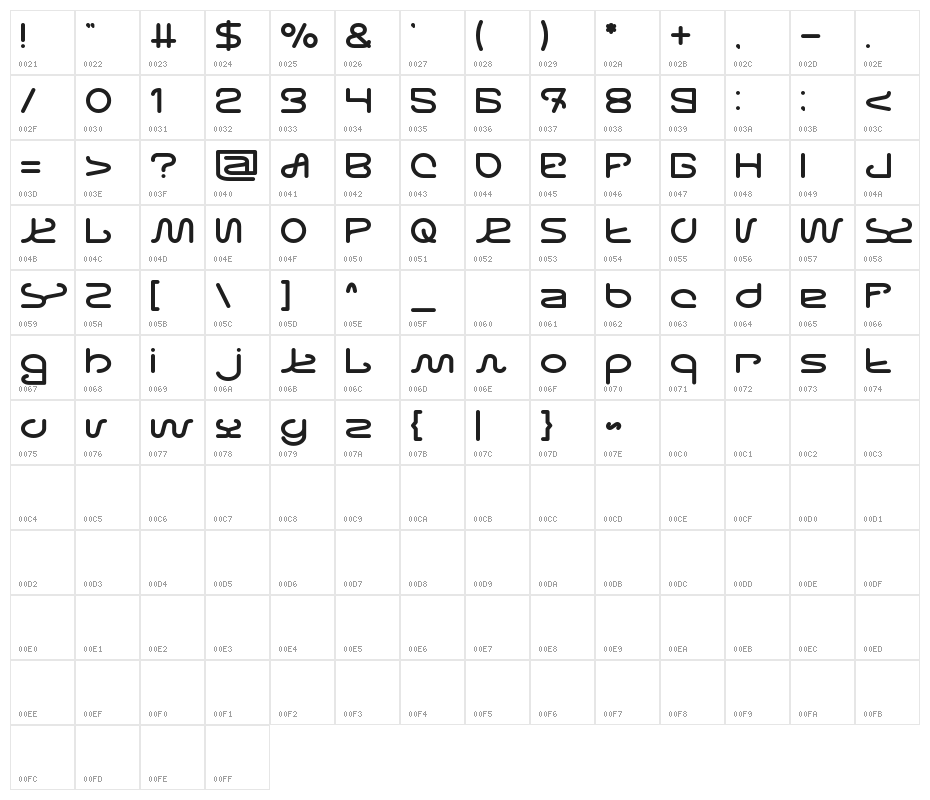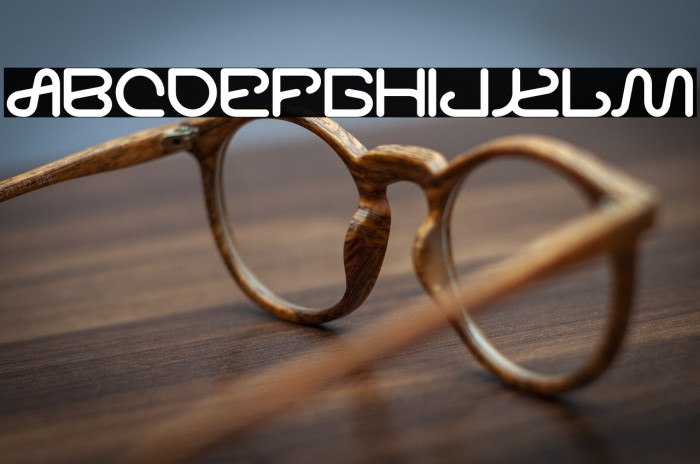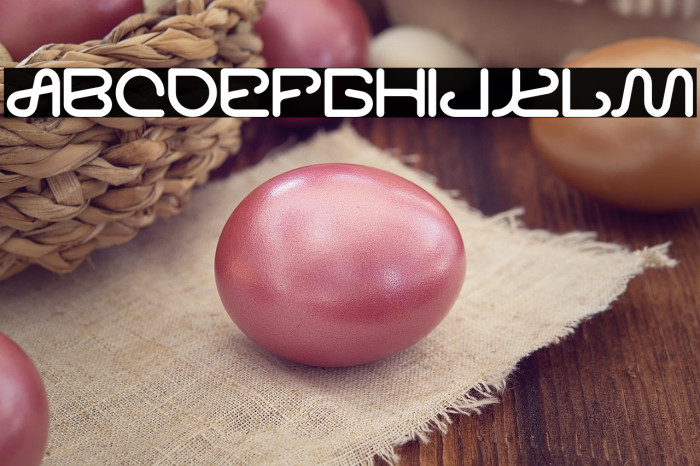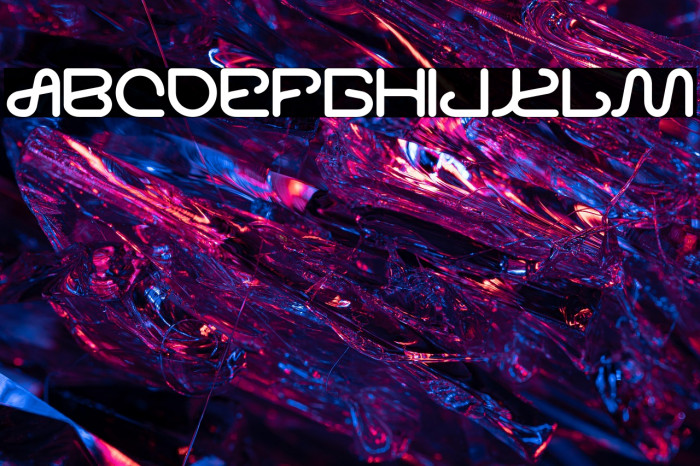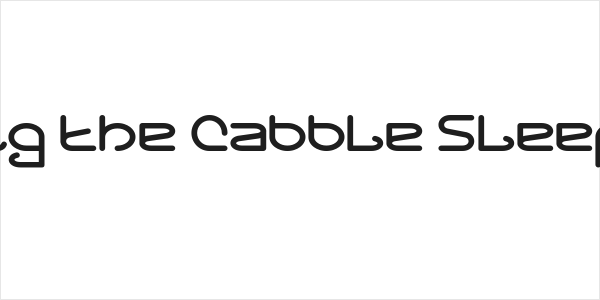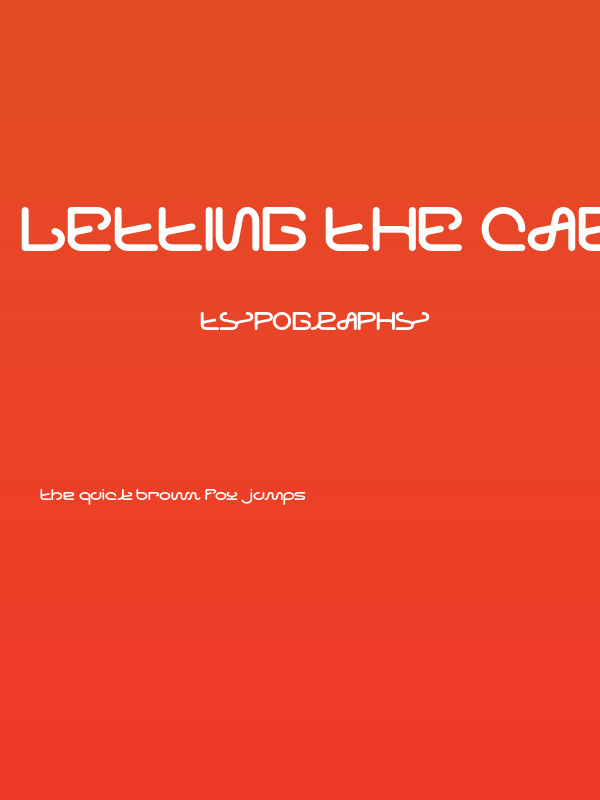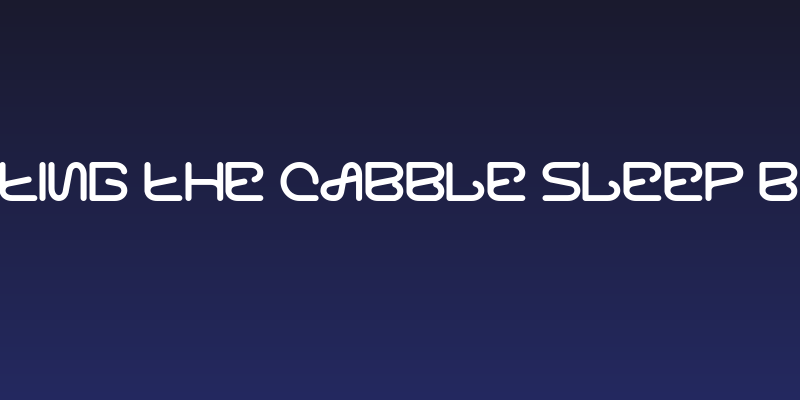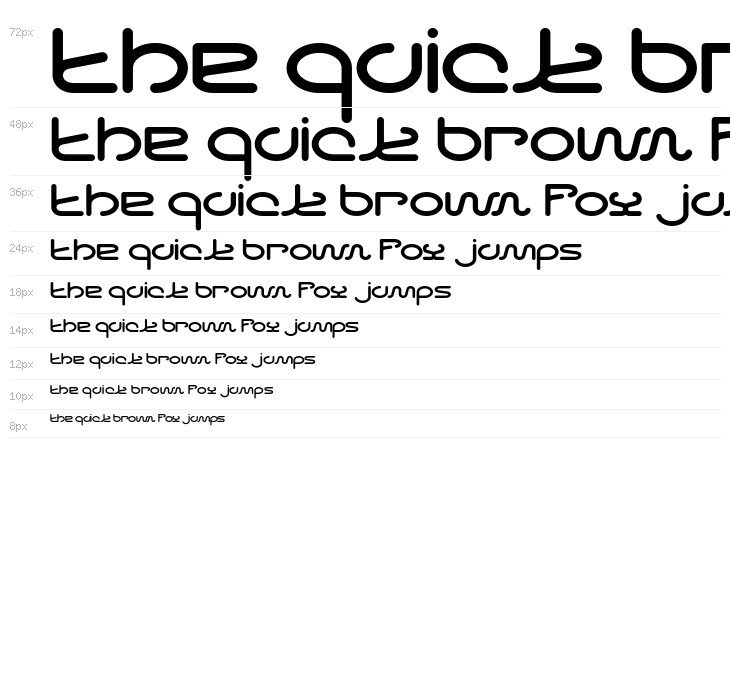
Letting The Cabble Sleep Bold Font
Letting The Cabble Sleep Bold Description
This font features a unique and playful design with rounded, interconnected strokes that give it a whimsical and modern appearance. The characters are bold and have a consistent thickness, creating a cohesive look across both uppercase and lowercase letters. The numbers and special characters maintain the same playful style, making the font versatile for various uses. Its distinctive style is characterized by smooth curves and a flowing structure, which adds a sense of movement and energy to the text. The font's boldness and rounded edges make it particularly eye-catching and suitable for creative projects.